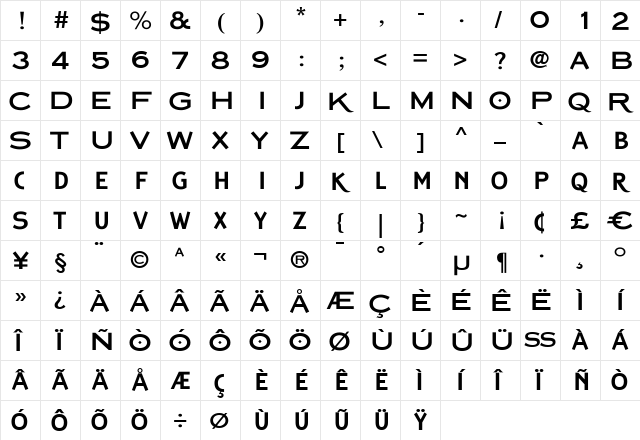
Copperplate Classic Sans Plus Regular
Design Context for Copperplate Classic Sans Plus Typeface
Copperplate Classic Sans Plus wears its vintage influences proudly, with letterforms that recall mid-century signage, classic packaging, and nostalgia-driven design.
Font Pairing: Combine Copperplate Classic Sans Plus with a simple slab or neutral sans — period-accurate companions reinforce the vintage feel without competing for attention.
Pro Tip: Use Copperplate Classic Sans Plus for headlines and pull quotes rather than body copy — its personality is best appreciated in short, focused bursts.